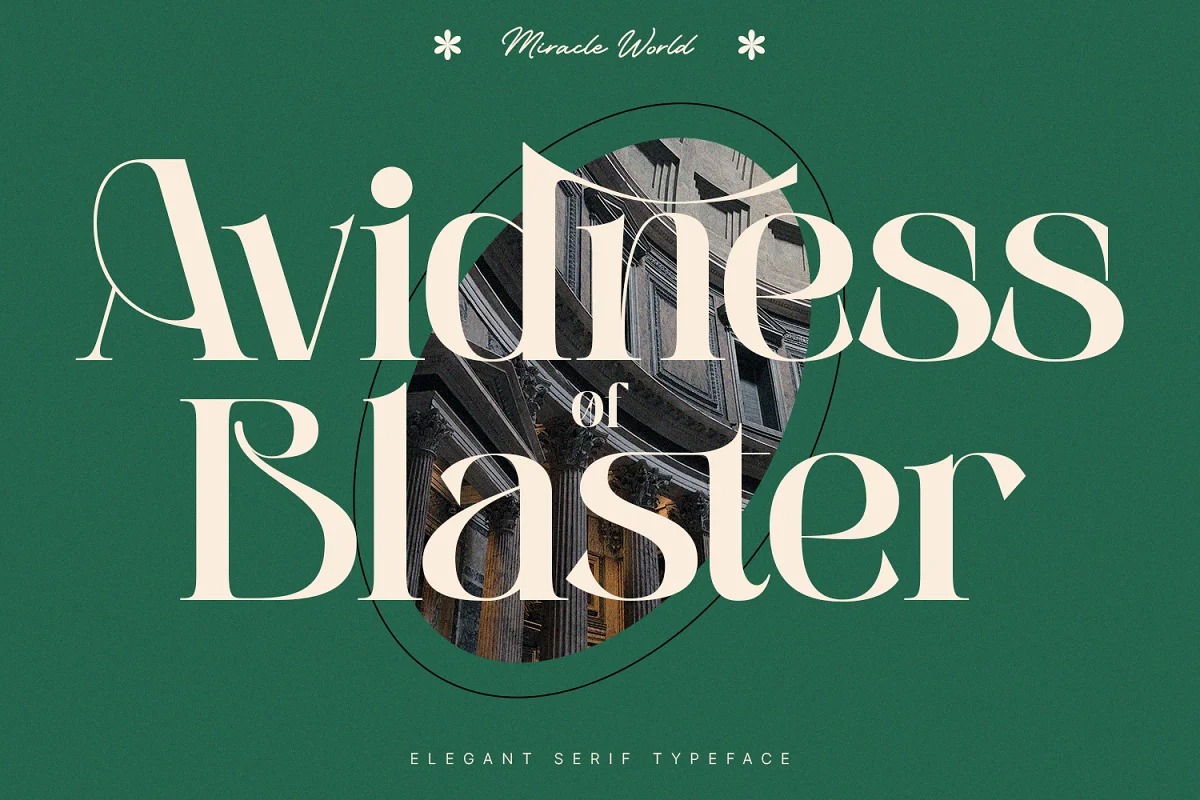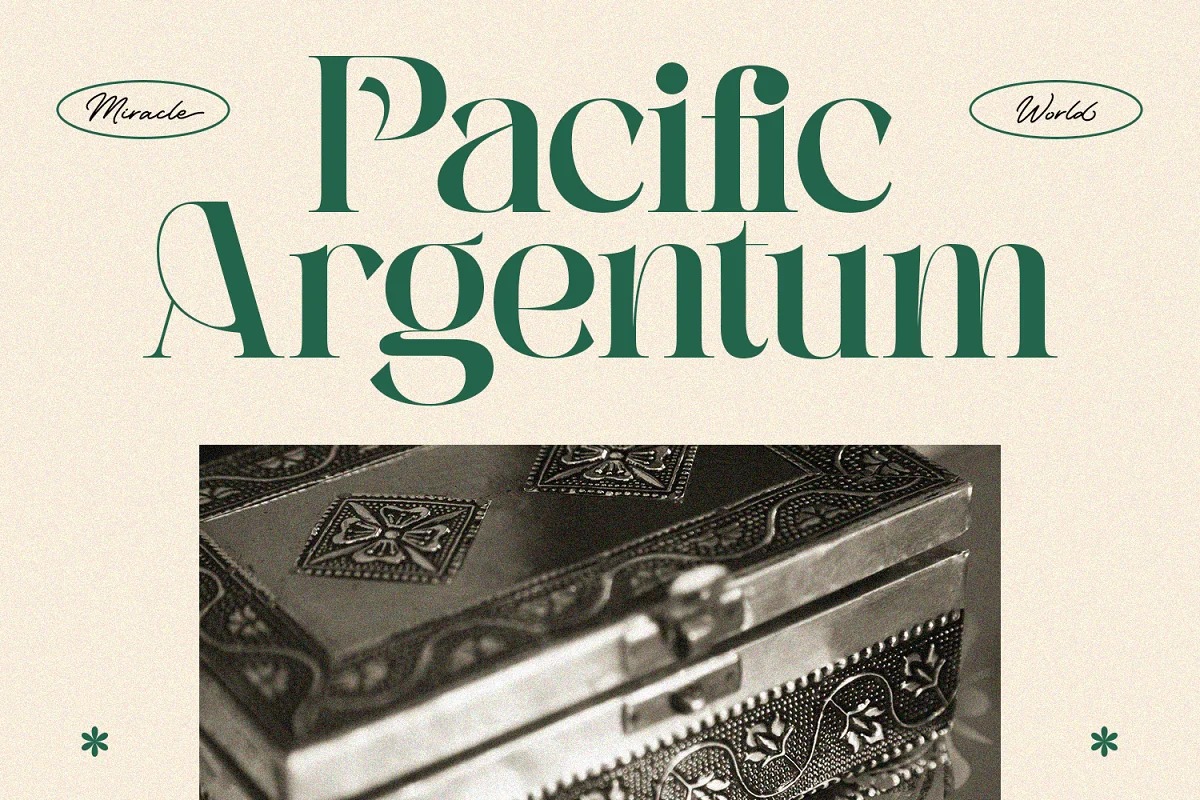
Miracle World Serif Font
This is a modern-style display serif typeface from designer Din Studio. This elegant typeface features custom ligatures and alternate characters that will help you create beautiful work. It can never go wrong to be applied in any purposes. The weight of the font was designed to bring strength to any title/header. On the other hand, the curves of the characters convey a sense of elegance. It is also has fascinating features that helps you maximize your design.